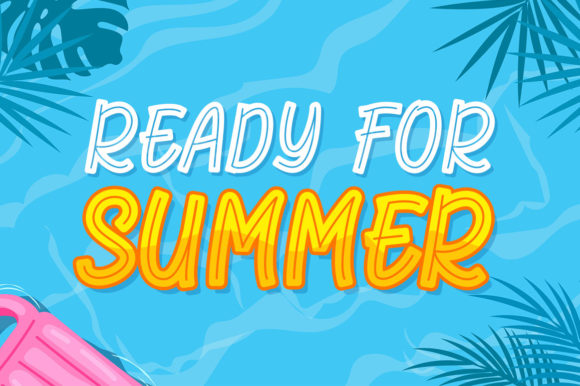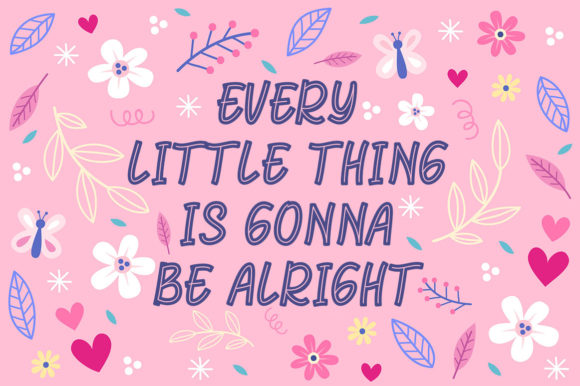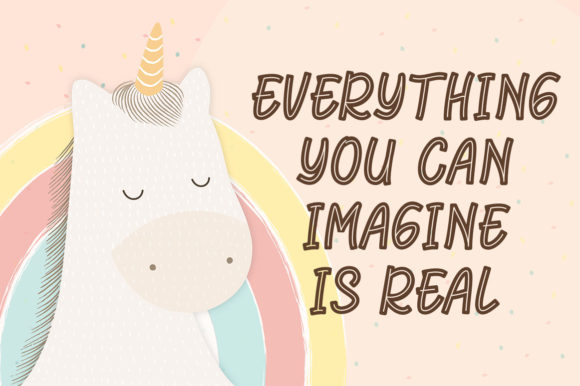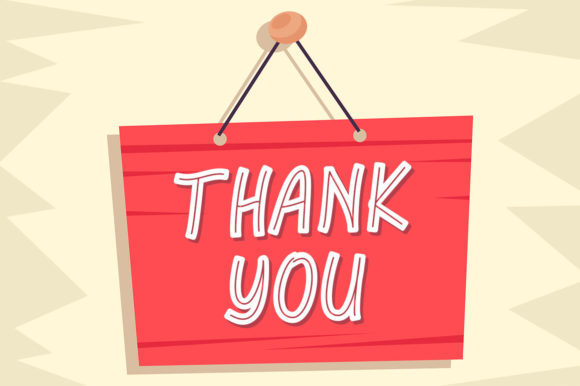
Introducing Florida Summer Font: The Perfect Addition to Your Creative Projects
Are you a designer, crafter, or DIY enthusiast looking for a font that can add a touch of playfulness and sweetness to your creative projects? Look no further than the Florida Summer Font. This enchanting display font is designed to turn any idea into a true standout, making it perfect for a wide range of applications, from crafting and scrapbooking to graphic design and digital art.
What is Florida Summer Font?
Florida Summer Font is a carefully crafted display font that exudes a sense of fun and playfulness. Its unique and elegant design makes it perfect for adding a touch of personality to any project. Whether you’re creating a handmade card, a scrapbook page, or a digital graphic, this font is sure to make your work stand out.
Key Features of Florida Summer Font
- Playful and Sweet Design: Florida Summer Font features a playful and sweet design that is sure to capture the attention of your audience.
- Enchanting and Elegant: This font has an enchanting and elegant feel that makes it perfect for a wide range of creative projects.
- Easy to Read: Despite its playful design, Florida Summer Font is easy to read, making it perfect for use in both digital and print applications.
- Highly Versatile: This font can be used for a wide range of projects, from crafting and scrapbooking to graphic design and digital art.
Uses for Florida Summer Font
Florida Summer Font is a highly versatile font that can be used for a wide range of creative projects. Here are just a few ideas to get you started:
- Crafting and Scrapbooking: Add a touch of personality to your handmade cards, scrapbook pages, and other craft projects with Florida Summer Font.
- Graphic Design: Use this font to create eye-catching graphics, posters, and flyers that are sure to grab attention.
- Digital Art: Add a playful touch to your digital art projects, such as illustrations, paintings, and collages.
- Sign Making: Use Florida Summer Font to create eye-catching signs for your business, event, or DIY project.
Tips for Using Florida Summer Font
Here are a few tips for getting the most out of Florida Summer Font:
- Use it as a Display Font: Florida Summer Font is designed to be used as a display font, so use it to add emphasis and personality to your project.
- Experiment with Colors: This font looks great in a wide range of colors, so don’t be afraid to experiment and find the perfect hue for your project.
- Pair it with Other Fonts: Florida Summer Font pairs well with a wide range of other fonts, so try pairing it with a serif or sans-serif font to create a unique and interesting look.
| Author | Kotak Kuning Studio |
Florida Summer Font is a playful and sweet display font that is sure to add a touch of personality to any creative project. Its enchanting design and highly versatile nature make it perfect for a wide range of applications, from crafting and scrapbooking to graphic design and digital art. Whether you’re a designer, crafter, or DIY enthusiast, Florida Summer Font is a great addition to your font library.